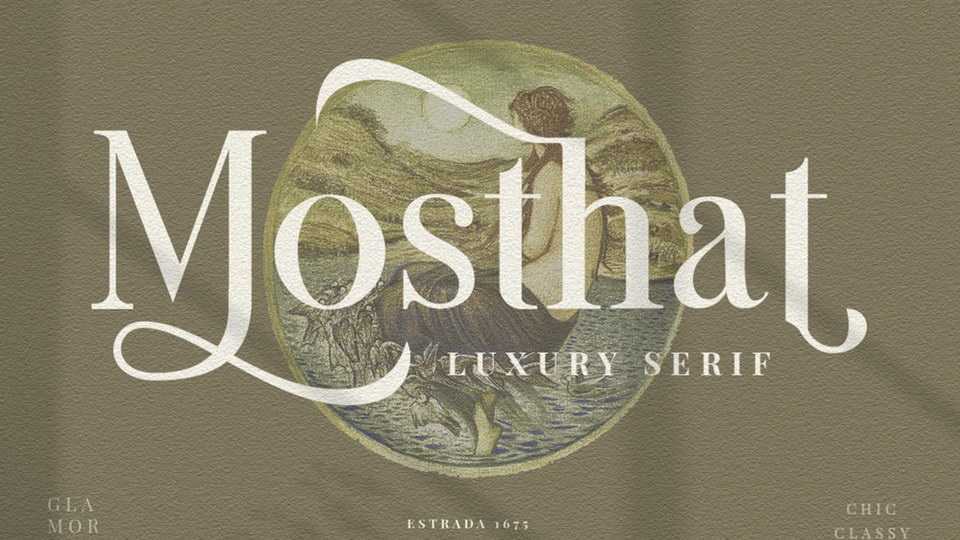
Download Mosthat font, a modern and elegant serif typeface. The font is suitable to use for all purpose like wedding invitation, summer occasion, greeting card, poster, postcard, photography, branding, editorial, event and fashion.
Designer: Vultype Co